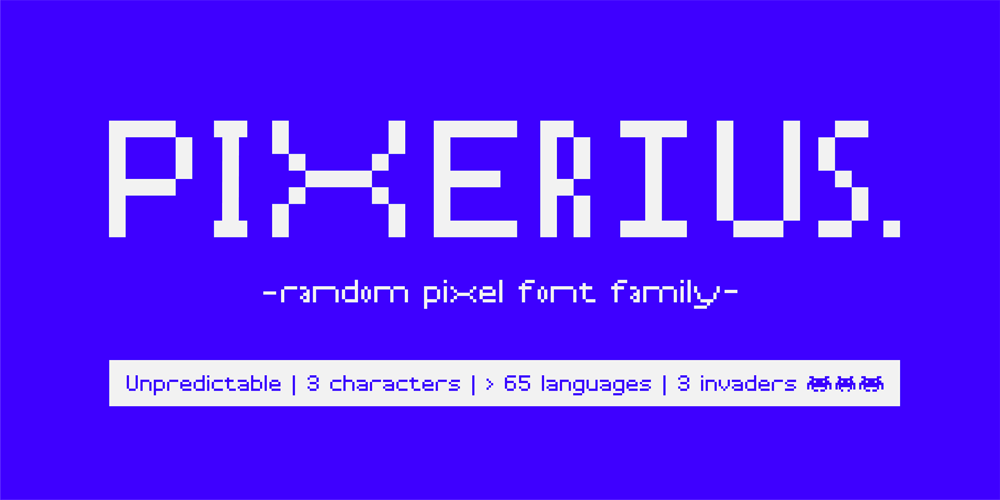
Pixerius Random Font Family was designed by Sergey Shapovalov and published by Shapovalov Fonts. Pixerius Random contains 3 styles and family package options. Pixerius is a family of pixel fonts containing 3 characters in width and 12 styles, from square shapes to very rounded ones. There is also a tracing mixing letters of different widths in a random order. The font is suitable for logos, large headlines, posters and signs. It combines the classic retro character of 8-bit games and the playful character of a random set. Pixerius contains extended Latin, Cyrillic, ligatures and space invaders. It contains OpenType features: liga, numr, dnom, calt, ss01, ss02. The font is also case sensitive, has fractions, currency signs including the ruble sign.